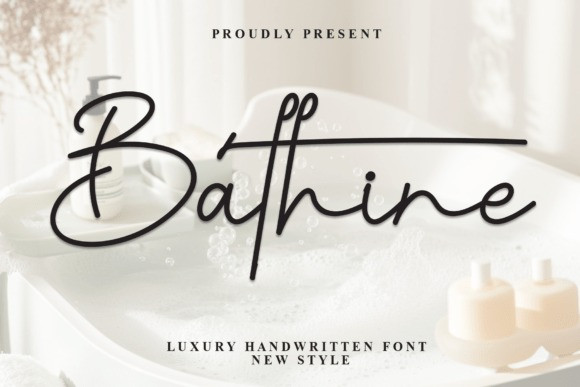
Bathine Script Font
Designer: Creativewhitee
Bathine Script Font a luxury handwritten typeface that flows like water.
This Bathine typeface features wide, horizontal letterforms and long, sweeping crossbars that create a sense of calm and expansive beauty.
The Bathine font is a “new style” script perfectly suited for spa branding, high-end bath products, and professional interior design portfolios. By using the Bathine typeface, you provide your brand with a signature look that feels relaxed, sophisticated, and deeply luxurious, turning every word into a tranquil design statement.